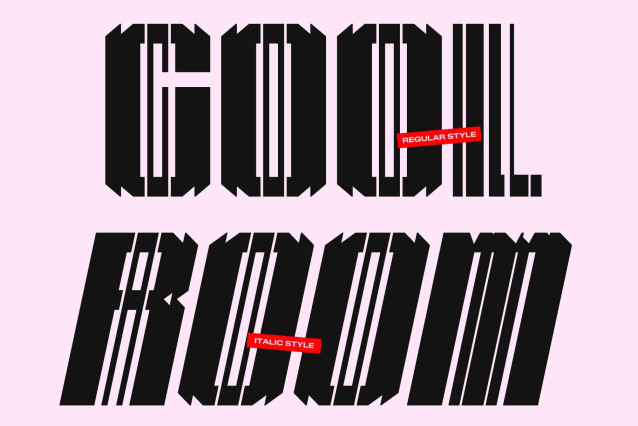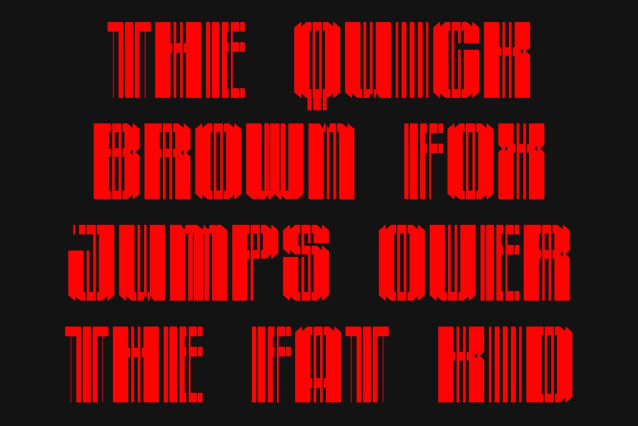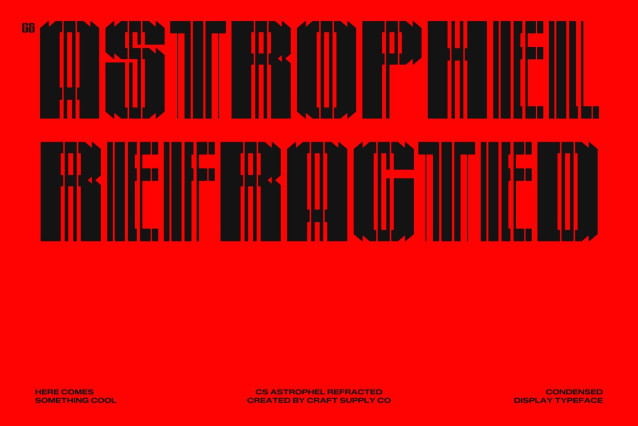
CS Astrophel Refracted Font
CS Astrophel Refracted – Condensed Sans Serif Font: Industrial Precision with Futuristic Light Distortion
Tall, Narrow Structure Built for Maximum Impact
This is a modern condensed sans serif typeface engineered for strong visual presence and space efficiency. Its tall, narrow proportions create a sleek and commanding rhythm that allows more information to fit into compact layouts without sacrificing readability.
Industrial Geometry with Futuristic Distortion
Rooted in industrial aesthetics, this font features solid geometric shapes and a clean, functional approach to form. The refracted effect introduces sharp, light-inspired slices across the letterforms, adding a subtle glitch-like distortion that enhances its technical personality. This fusion of industrial clarity and futuristic detail creates a distinctive and modern typographic voice.